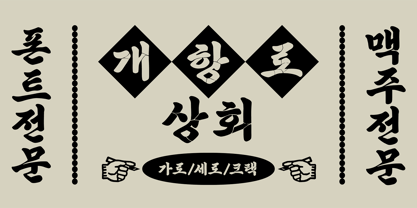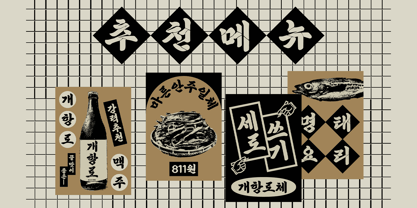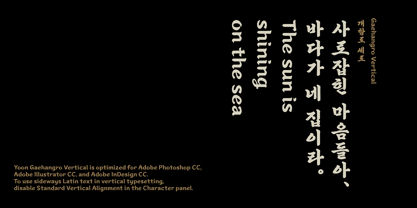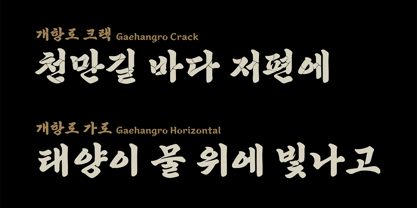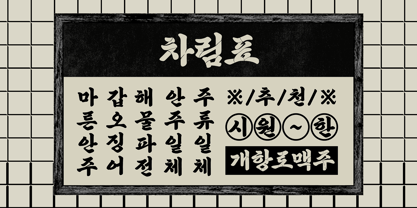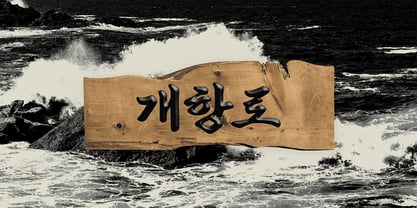
Yoon Gaehangro
Yoon Gaehangro is a local branding collaboration based on handcrafted wooden sign lettering from Incheon's historic district. Available in Horizontal, Vertical, and Crack styles, it offers rich creative versatility and heritage identity.
Family size: 3 styles (Horizontal, Vertical, Crack).
Glyph count: 2,780 hangeul glyphs, 95 Latin glyphs, 136 Adobe Latin 1 glyphs, and 986 KS symbols.
Language support: Multi-lingual support for English, Korean, and more.
Designers: Yoon Design Team
Foundry: Yoon Design